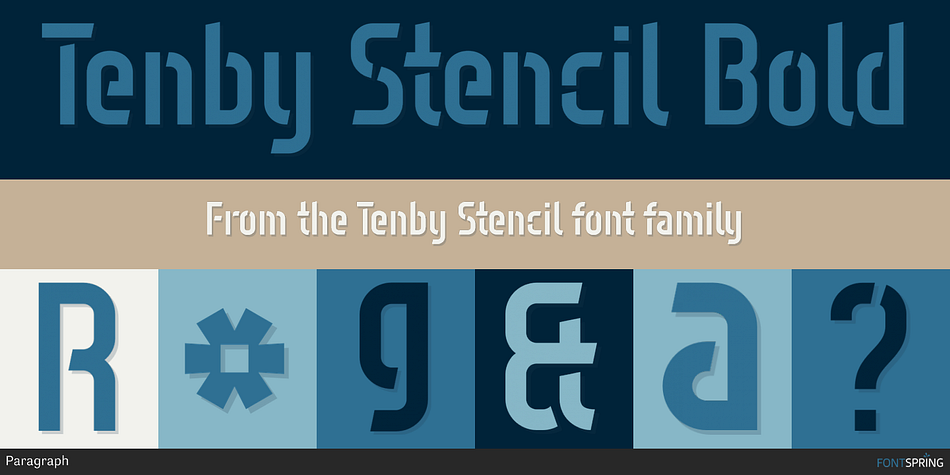
Tenby Stencil Bold
Tenby Stencil is a stencil font family. This typeface has five styles and was published by Paragraph.
Tenby Stencil is a geometric display typeface with broken contours.
Tenby Stencil is a geometric display typeface with broken contours. Unlike real stencil fonts, the gaps are not functional but decorative. They have a consistent size and angular similarity, giving headlines or logos a unique dramatic effect. Designed for use at larger sizes for logotypes, short titles or headings, it contains common ligatures and old-style numerals, and supports Western plus Nordic, Eastern European and Turkish languages.